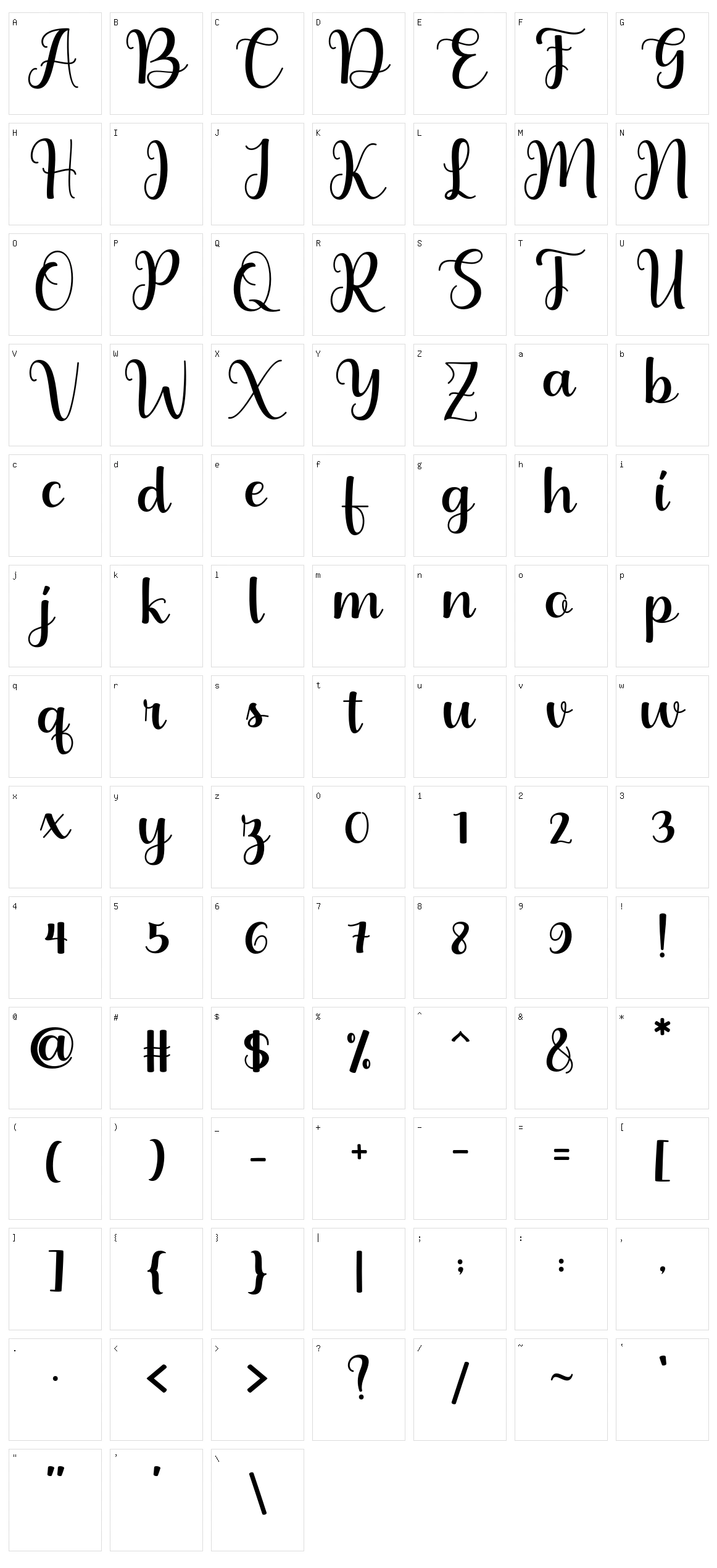
The free font Audigia Script is carefully designed by Cut Story, showcasing a thoughtful balance of creativity and usability and falls under the Script font style. When you download the ZIP file, it contains only 136.54 KB of font files, making it lightweight and quick to download. Please review the license details below to understand permitted usage and distribution rights. If license information is not available, we recommend using this font for personal projects only or contacting the author directly for commercial usage permissions.